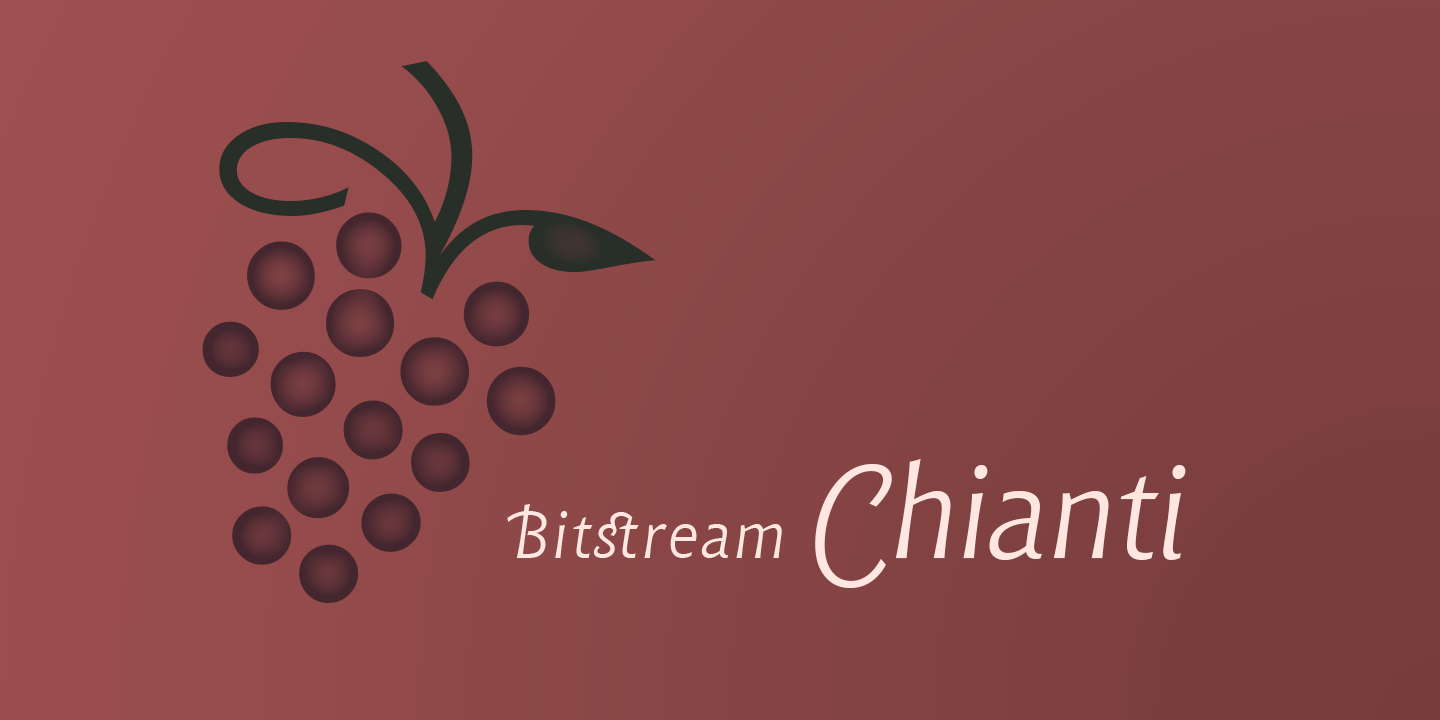
Chianti BT Font is perfect for wine labels, restaurant menus, Italian cuisine branding, luxury packaging, vintage posters, romantic wedding invitations, artisanal product labels, and sophisticated advertising campaigns.
Chianti BT Font is exciting because it embodies the rich heritage of Italian typography with its elegant curves and sophisticated character shapes that evoke the warmth of Tuscan vineyards and the timeless appeal of classic European design, making it ideal for projects requiring refined elegance and cultural authenticity.
The Chianti BT Font family includes multiple weights and styles such as Regular, Bold, Italic, Light, and Condensed versions, providing designers with extensive options for creating elegant typographic systems that maintain consistency across various design applications.
Chianti BT Font Free Download represents a perfect fusion of traditional Italian craftsmanship and modern typographic excellence. This distinguished typeface draws inspiration from the rolling hills of Tuscany and the sophisticated wine culture that has defined Italian elegance for centuries, offering designers a tool that instantly communicates refinement and cultural depth.
The font's carefully crafted letterforms feature subtle serifs and graceful proportions that create an immediate sense of luxury and sophistication. Each character has been meticulously designed to work harmoniously with others, ensuring optimal readability while maintaining the distinctive personality that makes Chianti BT Font so memorable and effective in premium branding applications.
Professional designers working with high-end clients appreciate this font's ability to convey quality and authenticity. The typeface excels in applications where elegance meets functionality, from upscale restaurant branding to luxury product packaging, from cultural event promotions to sophisticated editorial designs. Its versatility allows it to adapt seamlessly to both traditional and contemporary design contexts.
The font's character set includes comprehensive language support, making it suitable for international projects while maintaining its distinctive Italian charm. Whether used for headlines, body text, or decorative elements, Chianti BT Font delivers consistent visual impact that elevates any design project.
This remarkable typeface has become a favorite among creative professionals who understand that typography plays a crucial role in brand perception and user experience. Its ability to instantly communicate sophistication and cultural authenticity makes it an invaluable asset for designers working across various industries.